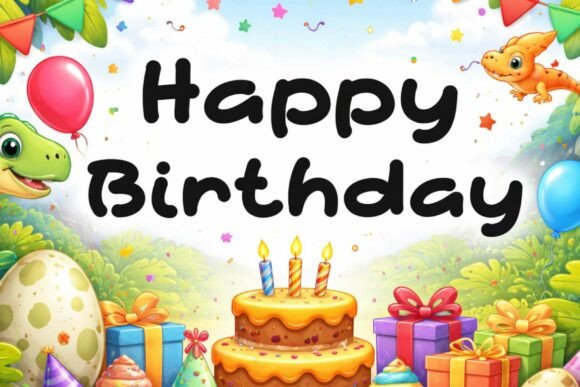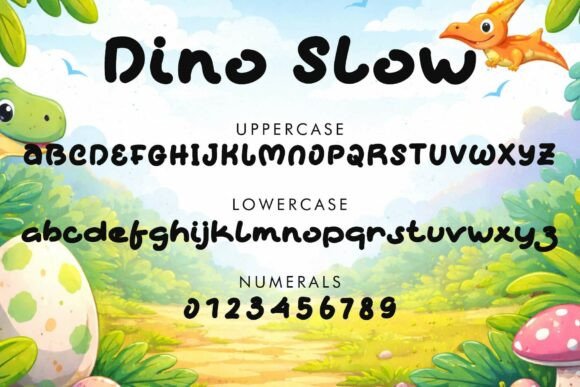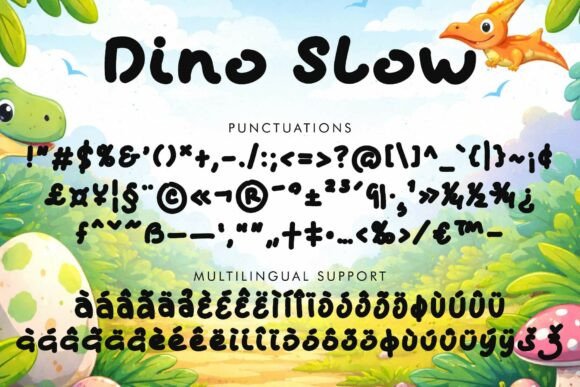
Introducing Dino Slow Font: The Ultimate Display Font for Fun and Creativity
Are you tired of using the same old fonts for your designs? Look no further! “Dino Slow” is a unique and adorable display font that’s perfect for adding a touch of fun and personality to your projects. This versatile font is designed to make your creations stand out, whether it’s for Easter, summer, holidays, or any other occasion.
What Makes Dino Slow Font So Special?
“Dino Slow” is a carefully crafted display font that features:
- Uppercase and lowercase letters for complete flexibility
- Numerals and punctuations for added functionality
- Multilingual support to cater to diverse audiences
With “Dino Slow,” you can create a wide range of designs, from cute and playful to bold and eye-catching. The font’s unique style is reminiscent of cartoons and comics, making it perfect for:
- Easter and Christmas designs
- Summer and holiday-themed projects
- Teacher’s Day and Mother’s Day cards
- Print materials, banners, and branding
- Stickers, logos, and fun text designs
- Bunny, rabbit, and cartoon-inspired creations
Why Designers and Crafters Love Dino Slow Font
Designers and crafters adore “Dino Slow” for its:
- Uniqueness: Stand out from the crowd with a one-of-a-kind font
- Cuteness: Add a touch of whimsy and playfulness to your designs
- Versatility: Use it for various projects, from digital to print
- Readability: Easy to read, even in smaller sizes
Tips and Tricks for Getting the Most Out of Dino Slow Font
To take your designs to the next level:
- Pair “Dino Slow” with other fun fonts for a unique combination
- Experiment with different colors and textures
- Use it for headlines, titles, and captions
- Add graphics and illustrations to enhance your design
“Dino Slow” is a delightful display font that’s sure to bring a smile to your face and a touch of fun to your designs. With its unique style, versatility, and ease of use, it’s perfect for designers and crafters of all levels. So why wait? Download “Dino Slow” today and start creating your own amazing designs!
Whether you’re a seasoned designer or a crafty DIY enthusiast, “Dino Slow” is sure to become your go-to font for all your fun and creative projects. So go ahead, get creative, and have fun with “Dino Slow”!